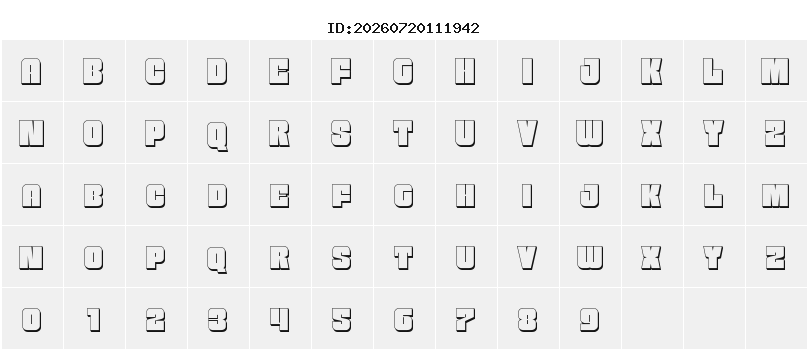
Funk Machine 3D Preview
• Font Name: Funk Machine 3D
• Full Font Name: Funk Machine 3D
About Funk Machine 3D.ttf
Funk Machine 3D.ttf is a modern, elegant sans-serif font designed for ultimate readability and visual harmony. Perfect for branding, headlines, web design, and print materials.